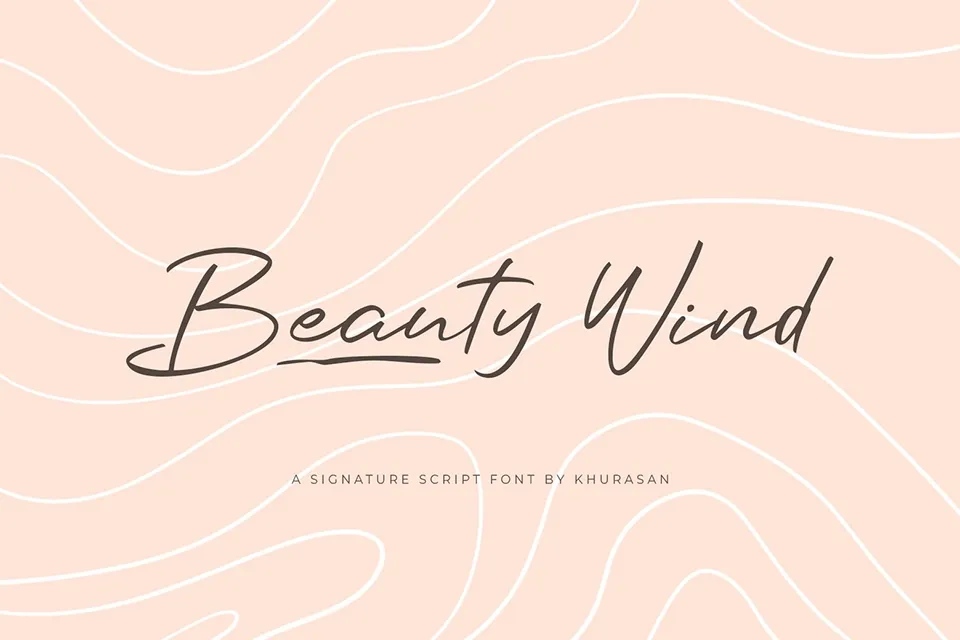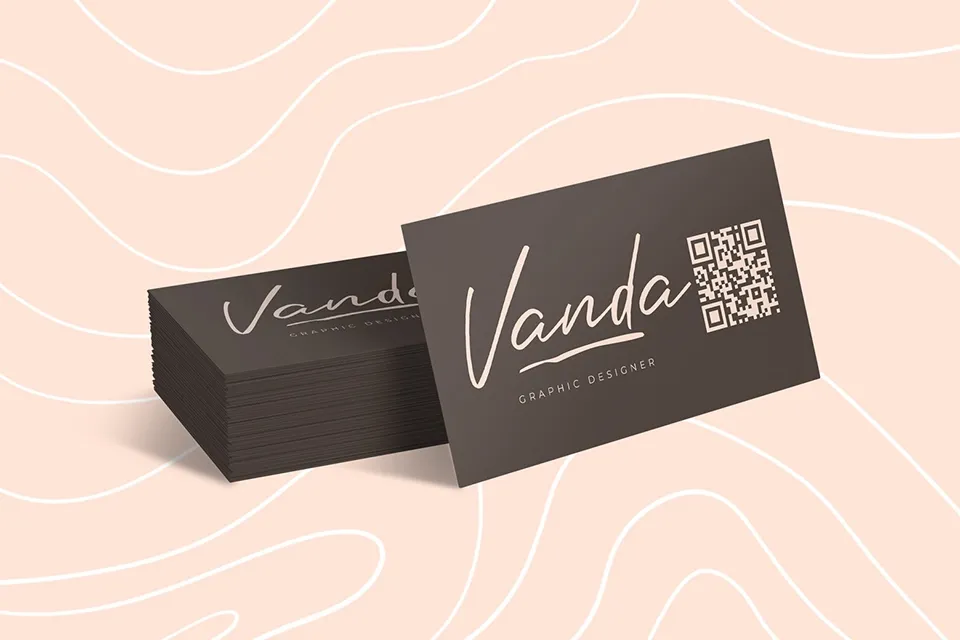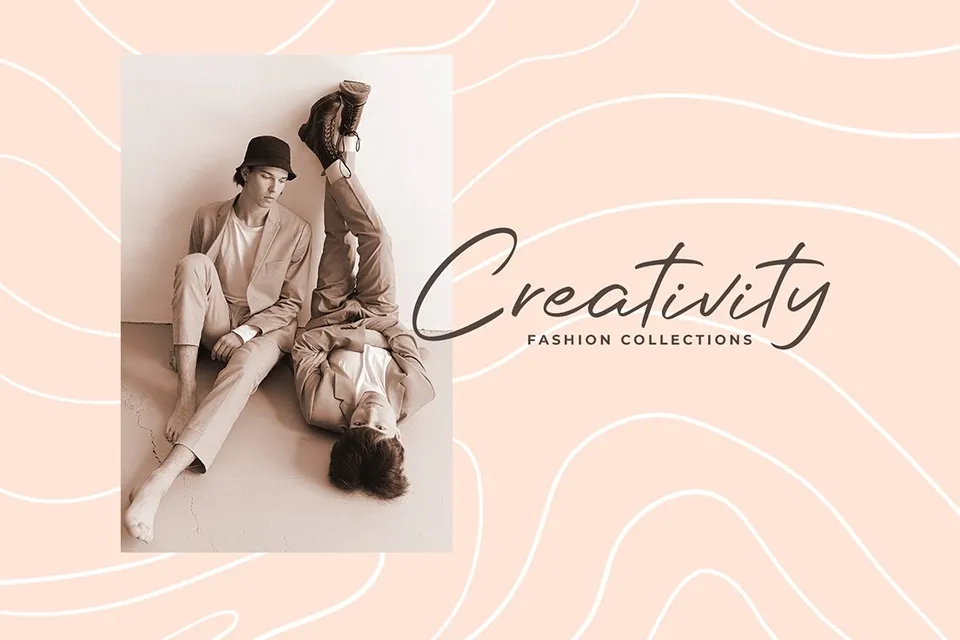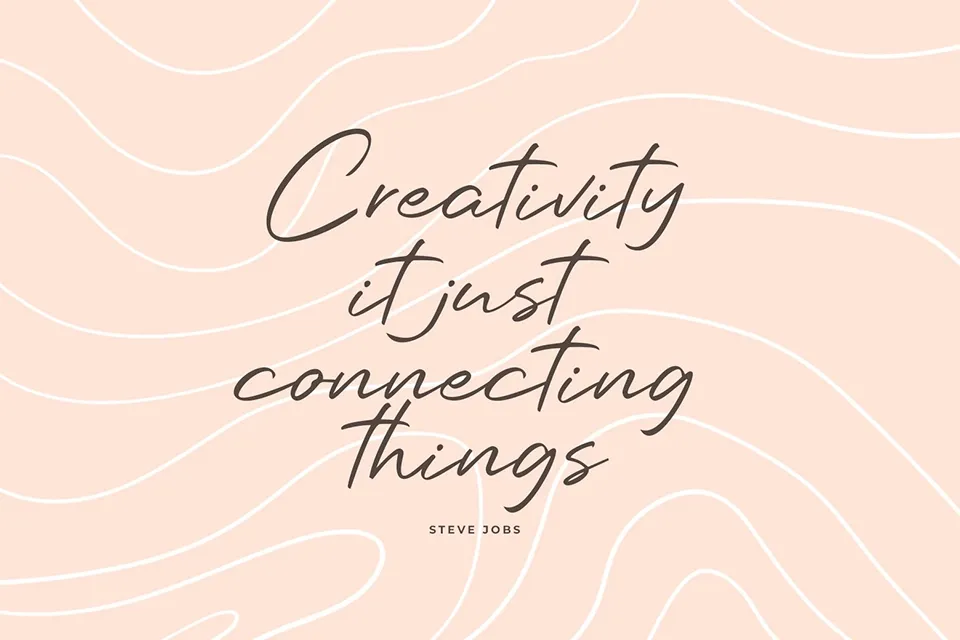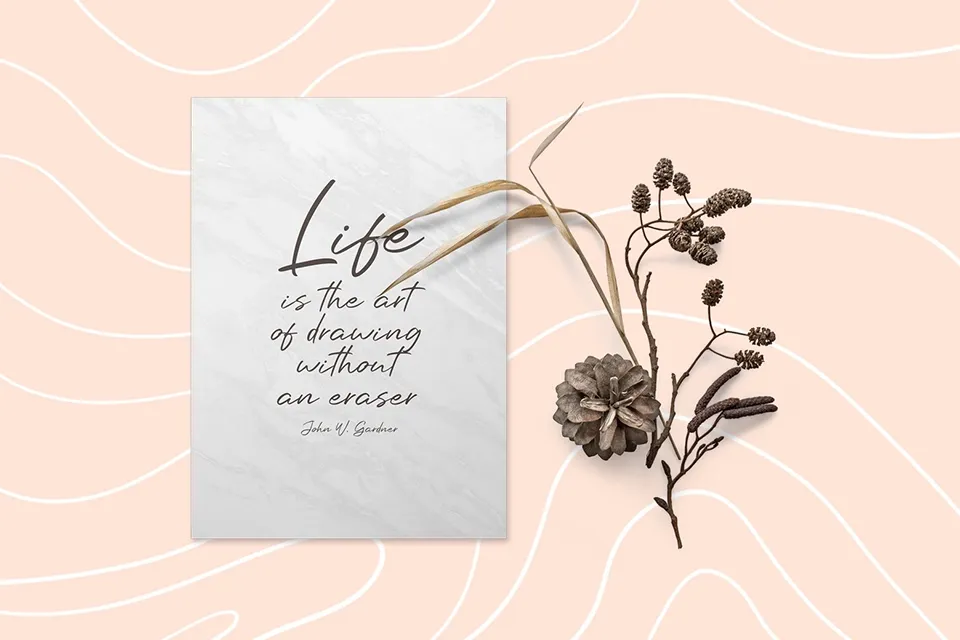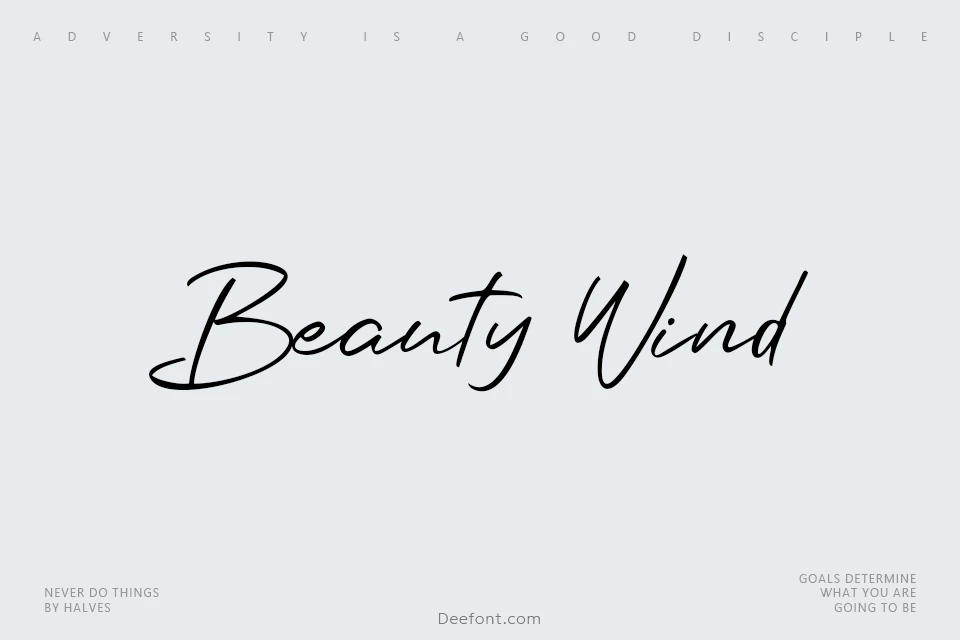
Beauty Wind Font
Beauty Wind Font is a modern signature script typeface meticulously crafted to emulate the fluidity and elegance of continuous handwriting. With its graceful, airy curves and delicate details, this font is perfect for posters, logos, magazines, book covers, banners, branding, wedding invitations, and any design that calls for a touch of sophistication and style. Inspired by the natural movement of wind, Beauty Wind Font adds a sense of fluidity and charm, making every project feel refined and effortlessly beautiful.